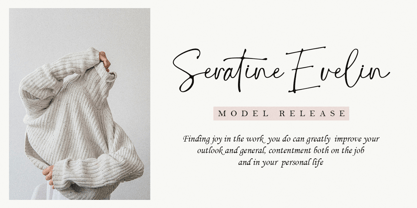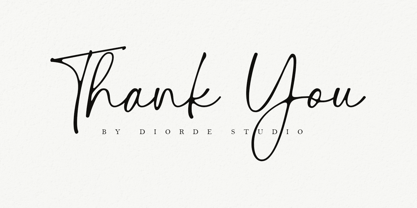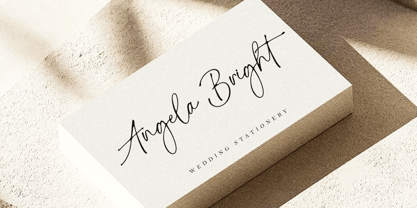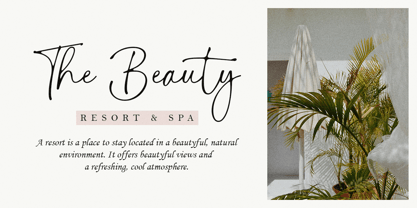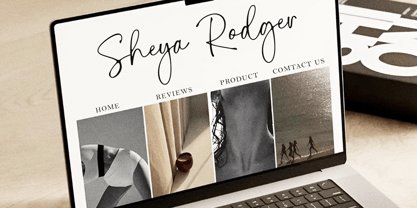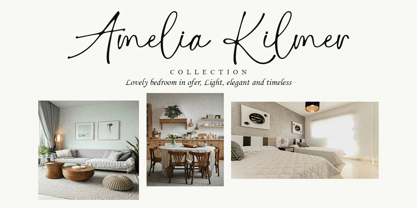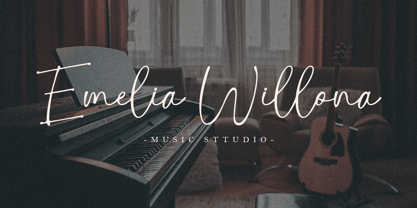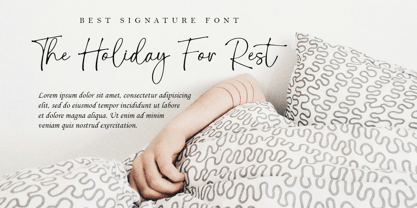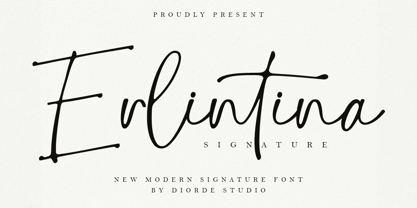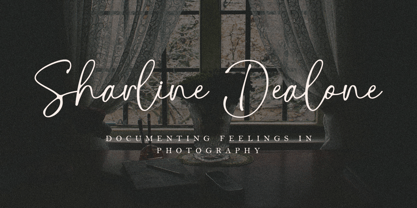
Erlintina
by Deorde Studio
The Erlintina Font Family was designed by Teuku Syarkawi and published by Deorde Studio. Erlintina contains 1 styles. More about this family
Erlintina is a stylish signature font with smooth, natural curves and an effortless flow. It captures the look of authentic pen strokes, bringing elegance and modern charm to your designs. Perfect for logos, branding, invitations, packaging, and anything that requires a delicate handwritten touch, this font adds a touch of class and authenticity without the effort. Features: Uppercase & lowercase, Numbers & Punctuation, Alternates & Ligatures, Multilingual Support, PUA Encoded